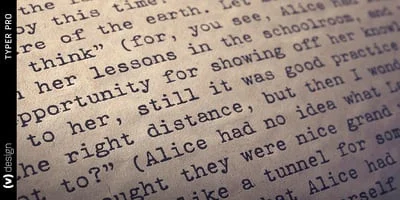
Typer Pro Font
Typer Pro Font is perfect for professional typing design projects including typewriter museums, vintage office furniture stores, professional typing services, stenography schools, vintage document reproduction, classic office equipment dealers, traditional typing academies, and authentic typing-focused campaigns. This distinctive typeface works perfectly for transcription services, vintage typewriter collectors, professional secretarial schools, classic office supply companies, and projects that celebrate the precision and professionalism of traditional typing craftsmanship and keyboard excellence.
What makes Typer Pro Font exciting is its professional typing character that perfectly captures the essence of typewriter precision and professional keyboard excellence. The font features monospace letterforms with typewriter styling that reflects the mechanical accuracy and professional standards of traditional typing methods. Its precise design elements embody the spirit of professional typing and keyboard craftsmanship, making it perfect for projects that need to convey precision, professionalism, and connection to typing heritage. The carefully crafted typewriter proportions create an atmosphere of professional sophistication and typing authenticity.
Typer Pro Font comes in multiple family variations including professional, mechanical, precise, and typewriter styles. Each weight maintains the distinctive typing character while offering different levels of professional intensity and typewriter presence. The font family includes typing alternates, professional ligatures, and typewriter variations that provide designers with comprehensive options for creating truly authentic and professionally typed typographic compositions that celebrate typing excellence.
Whether you're designing professional branding, creating typing marketing materials, or developing typewriter promotional graphics, Typer Pro Font provides the perfect typographic foundation for projects that celebrate typing excellence and professional sophistication. This remarkable typeface transforms ordinary text into compelling expressions of typing wisdom and professional keyboard artistry. Download this professional font today and type your design projects with the typewriter authenticity and professional precision that captures the essential spirit of traditional typing craftsmanship and keyboard excellence.